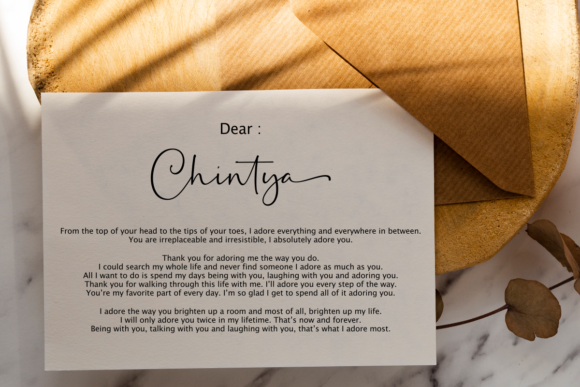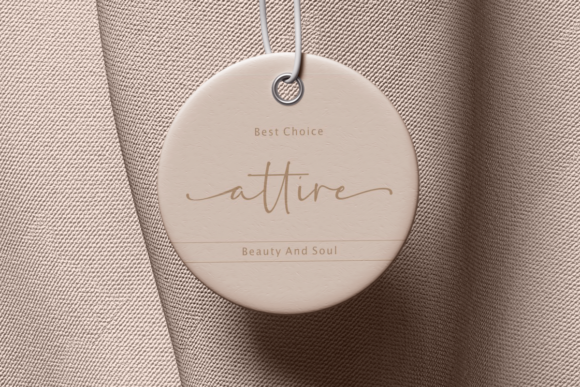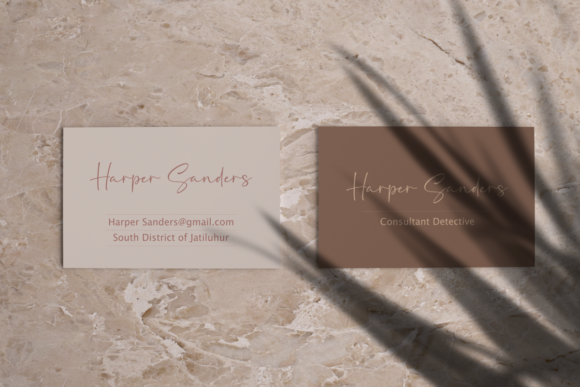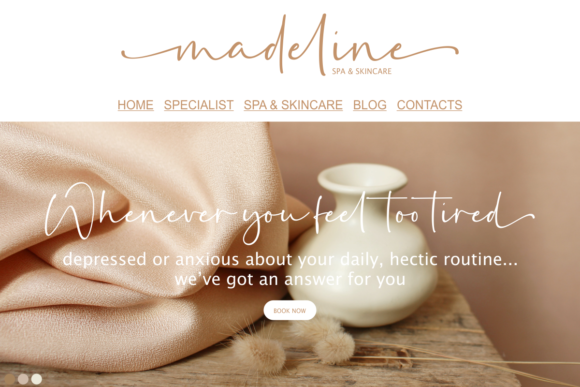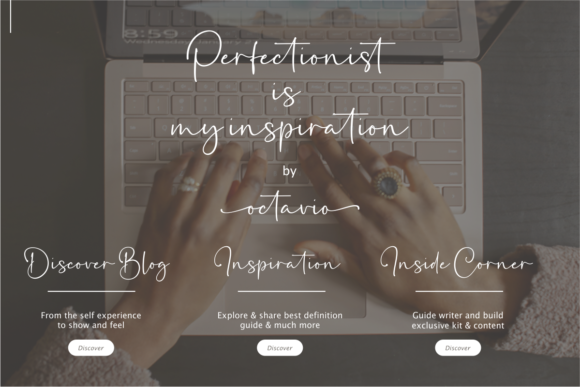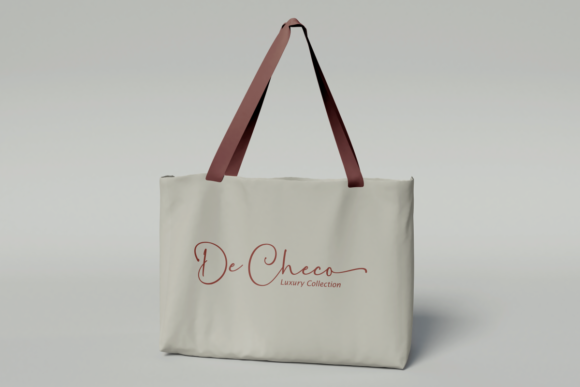
Introduction to Secretoria Font
Secretoria is a thin and fashionable script font.
This font is neatly crafted and highly detailed Secretoria is PUA encoded which means you can access all glyphs and swashes with ease.
Key Features of Secretoria Font